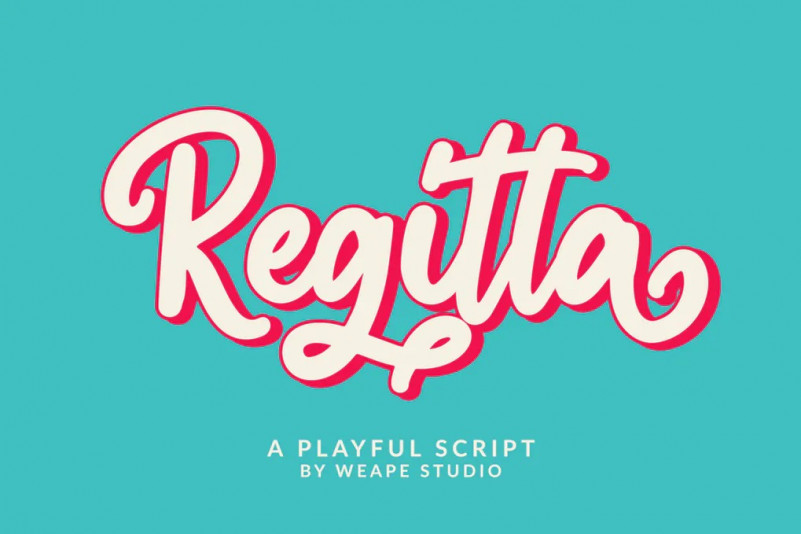
Regitta Font
Introducing Regitta Playful Script Font, script with unique strokes and alternates character make it beautiful and look natural as written by hand.
Regitta is perfect for signature, branding, wedding, fashion, photography title, poster, social media, music album, book cover, packaging, handwritten quotes, greeting cards and advertising.